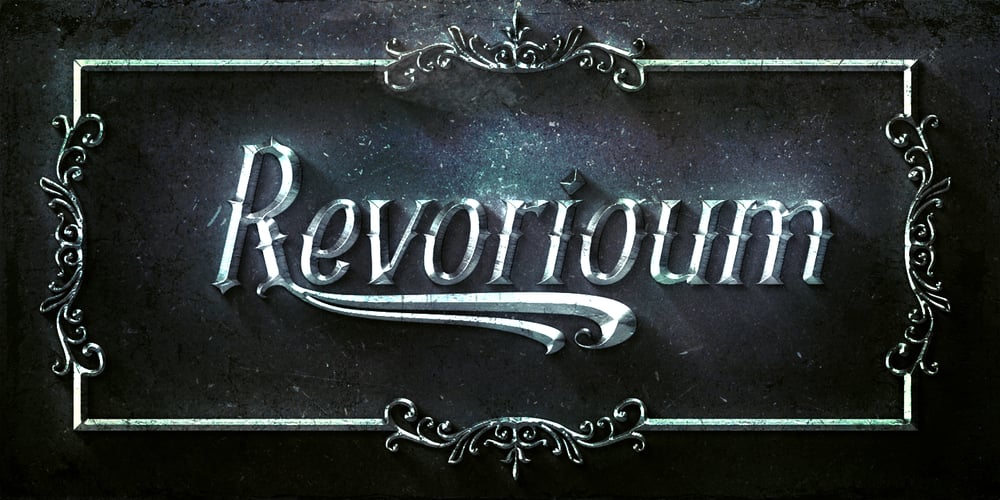
Revorioum Font Family was designed by Cucu Supriyadi and published by Seventh Imperium. Revorioum contains 1 styles and family package options. Revorioum has a classical bold contemporary typeface with a dynamic and flexibility touch, it is equipped with lots of opentype features making it easy to play with.